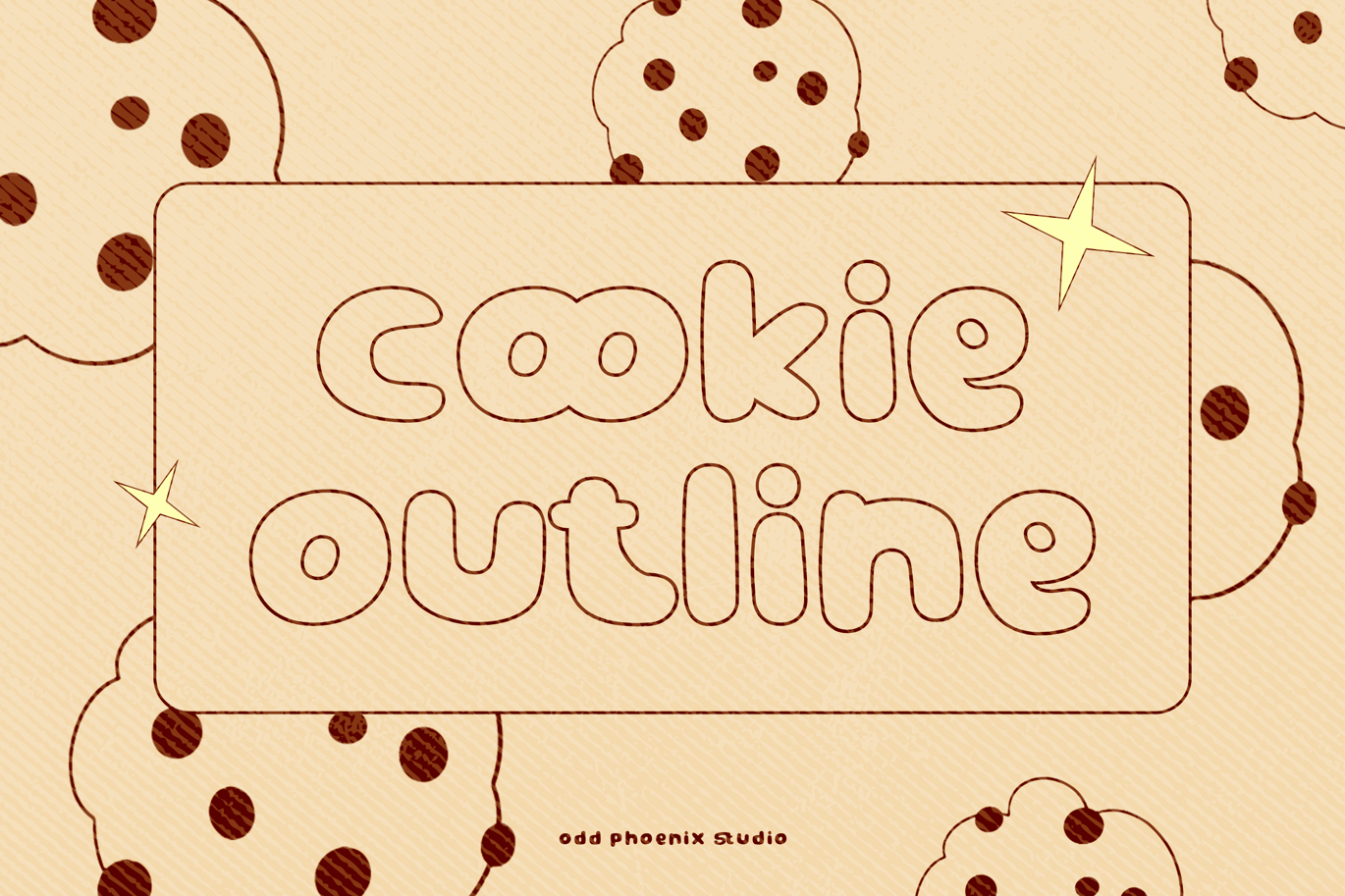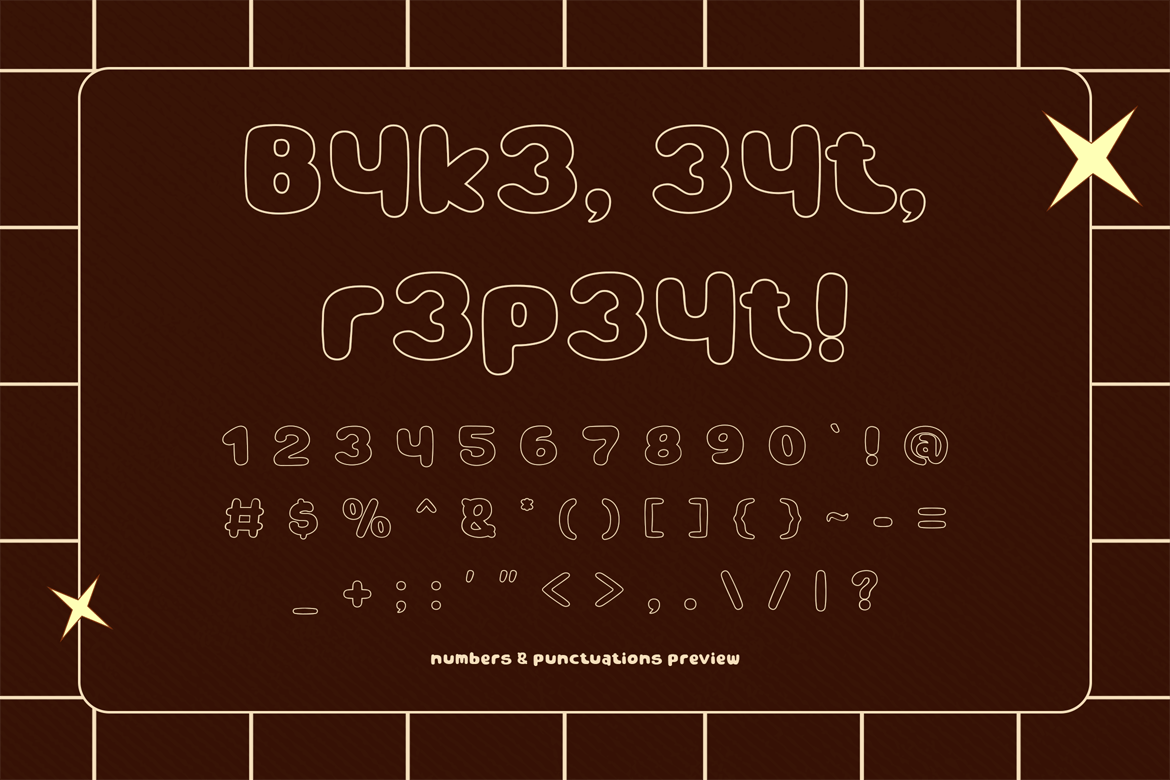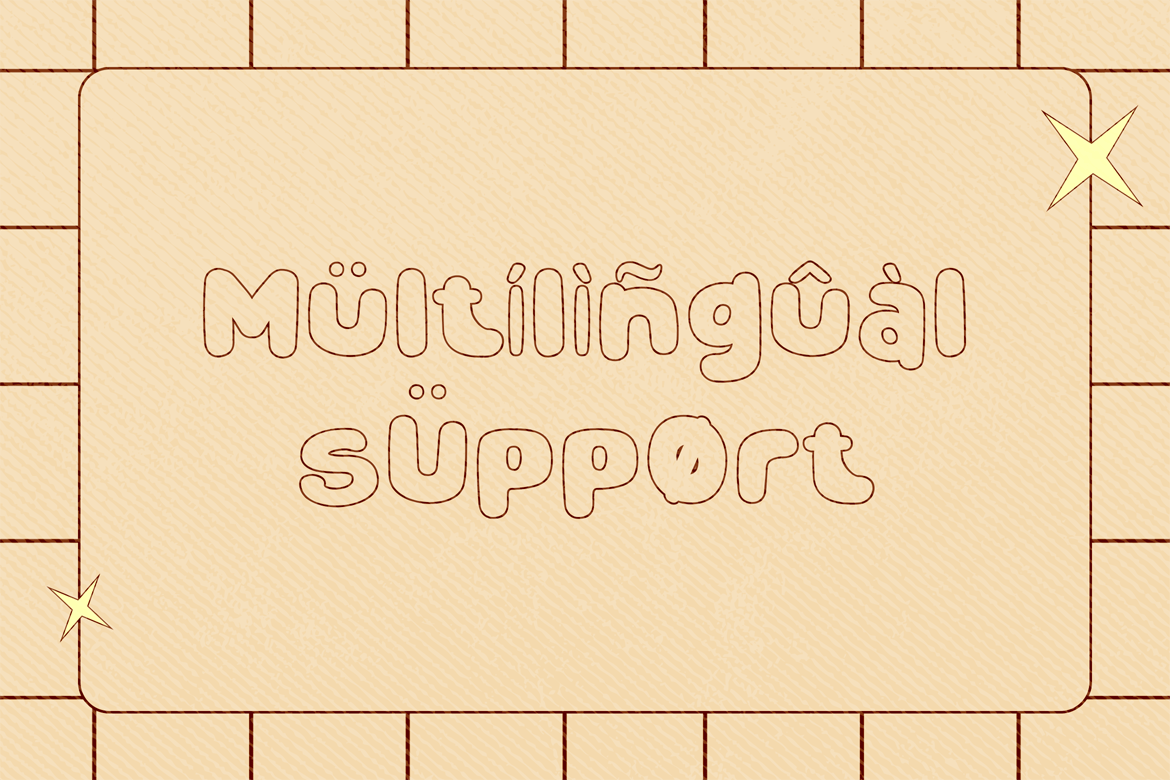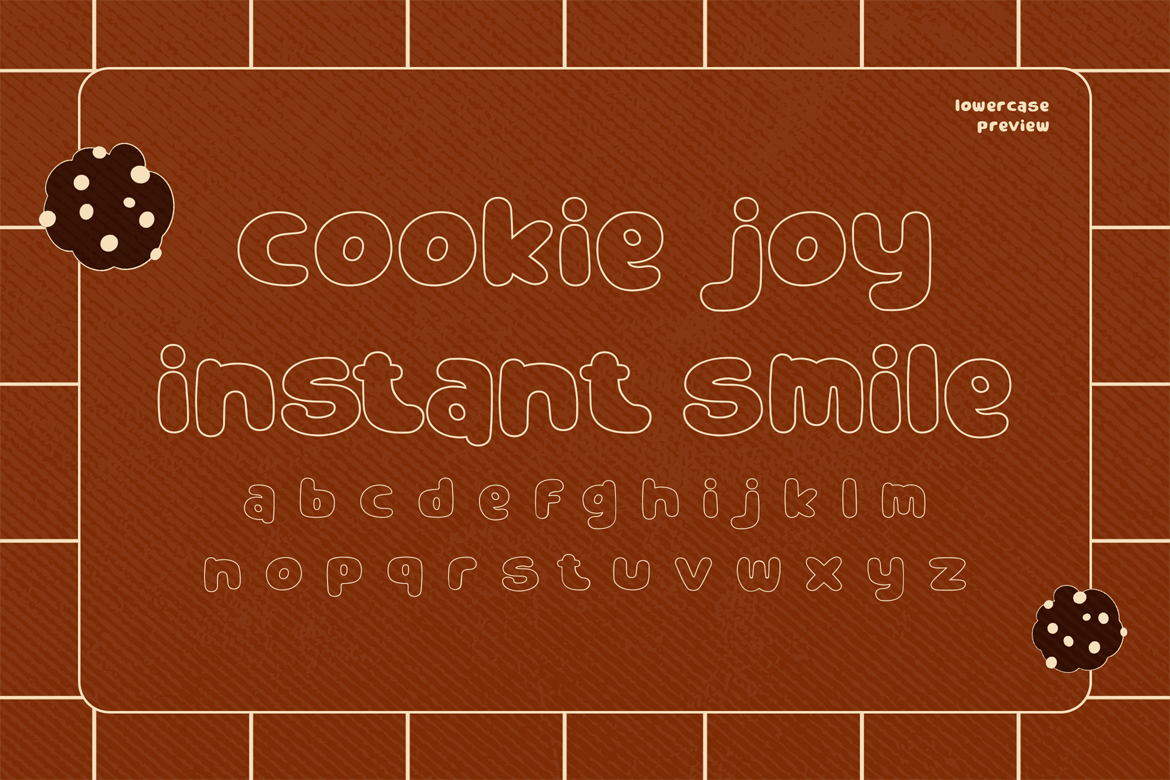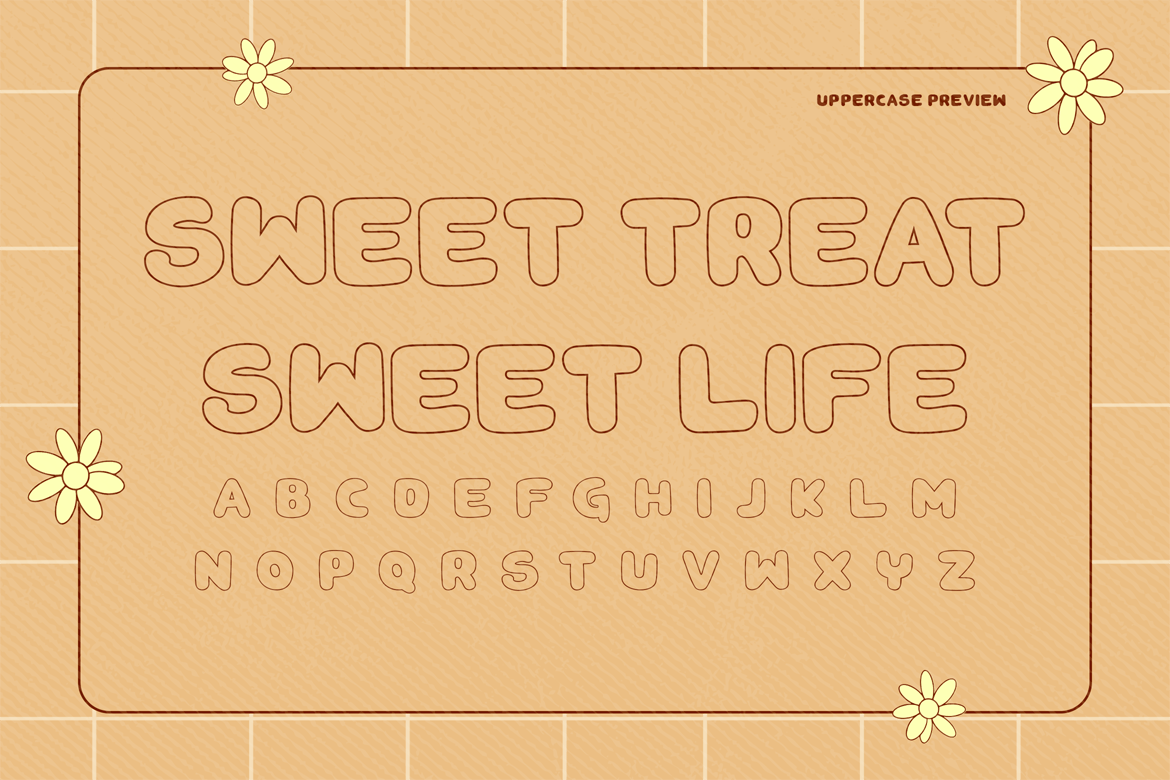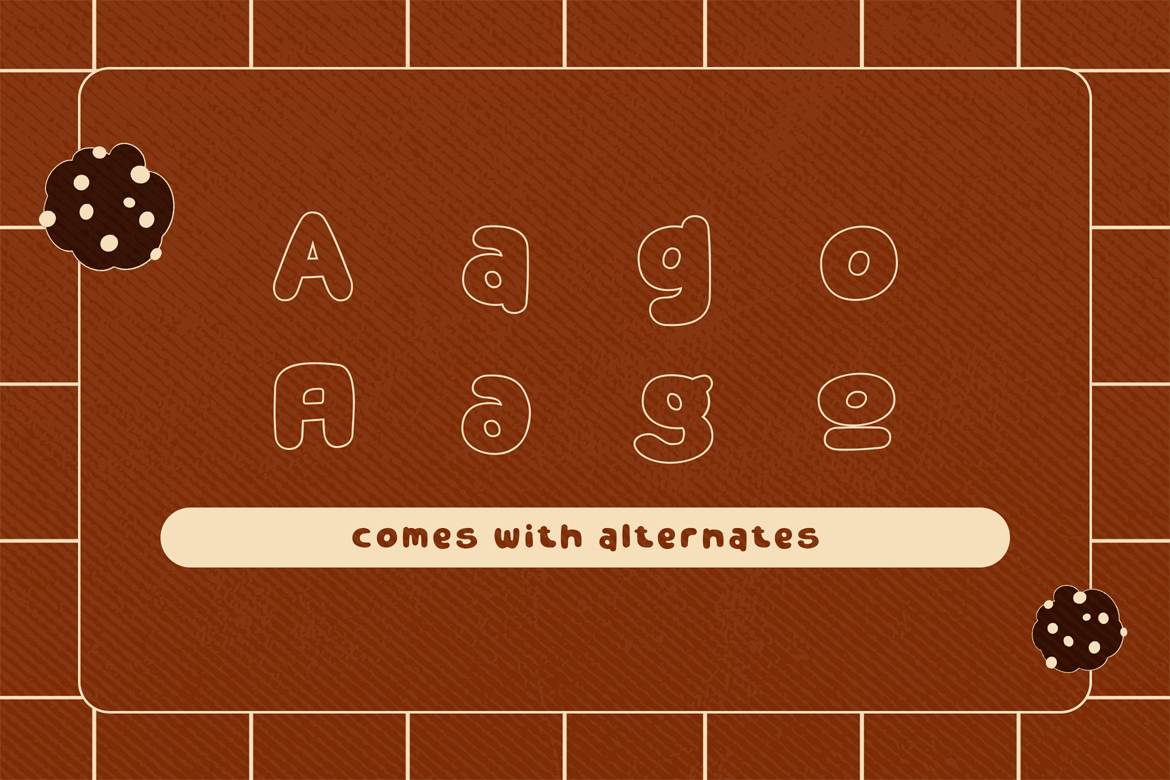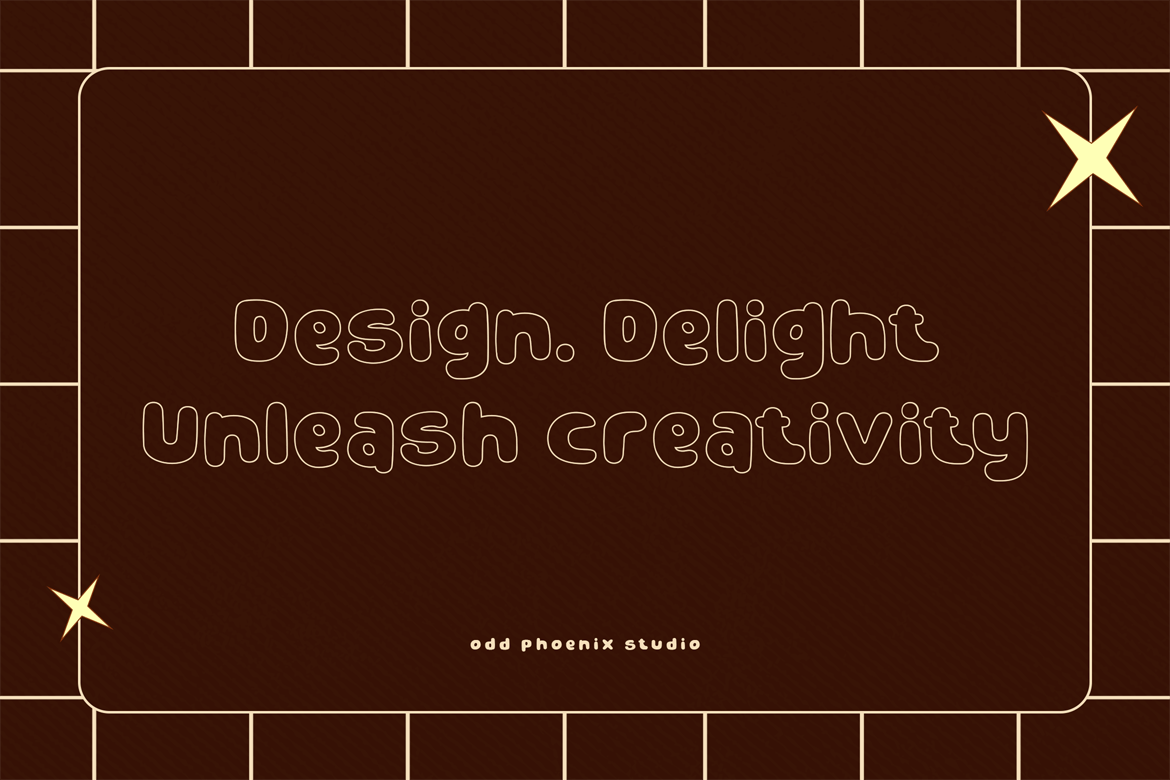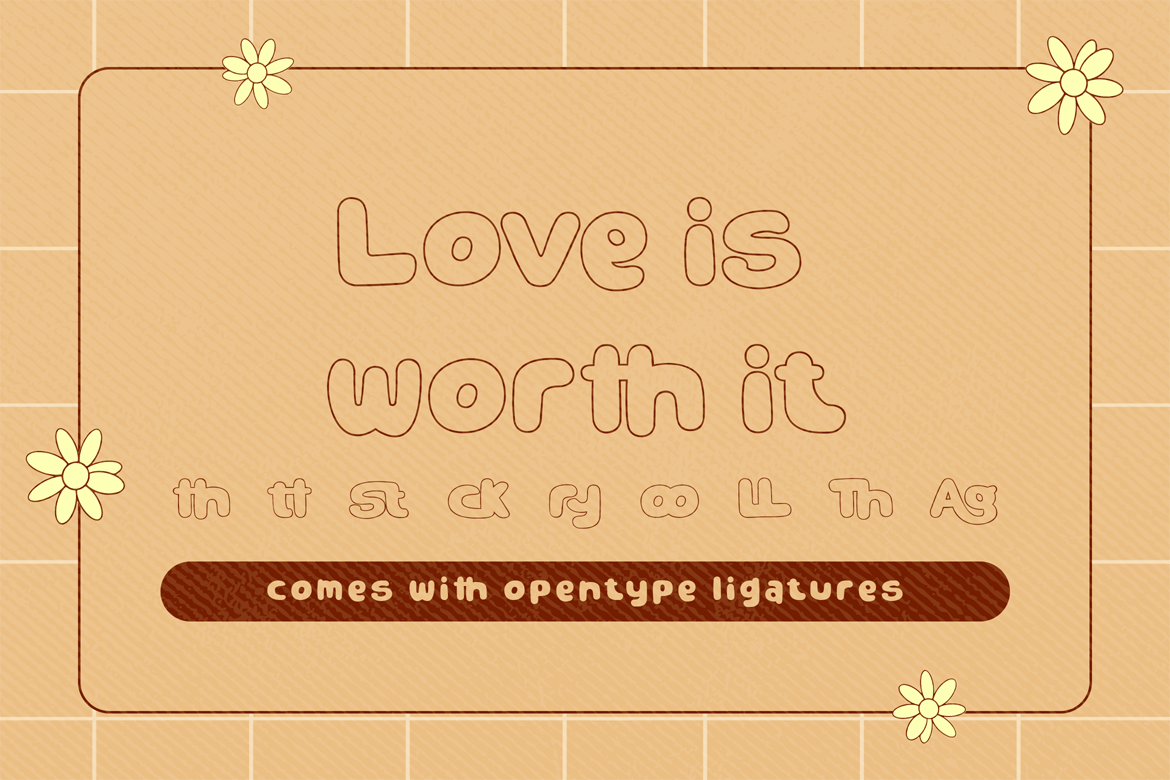
Cookie Outline – Sans Serif Font
Add a dash of sweetness to your designs with Cookie Outline, a delightful font perfect for playful and charming projects